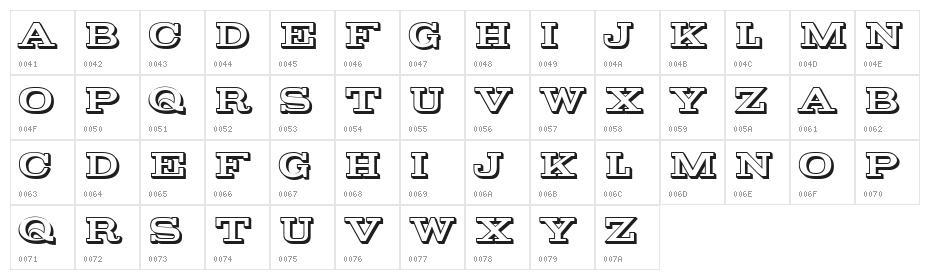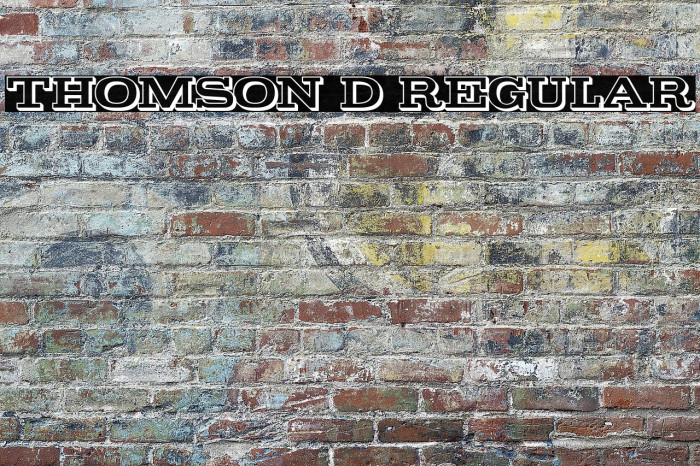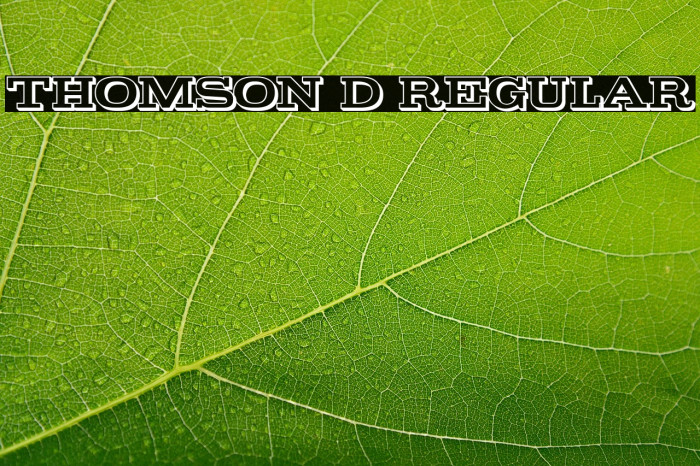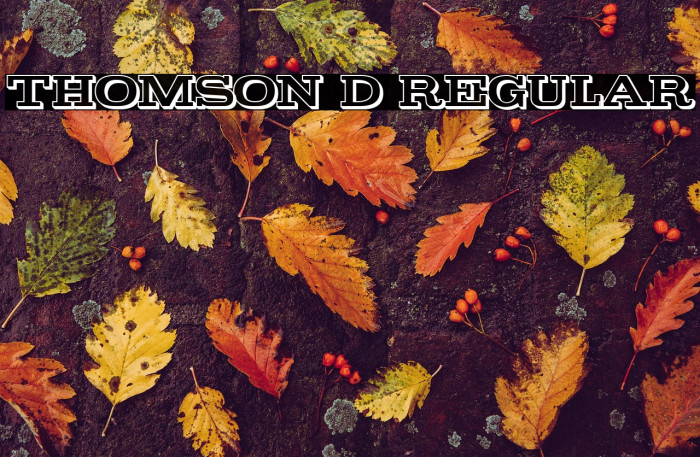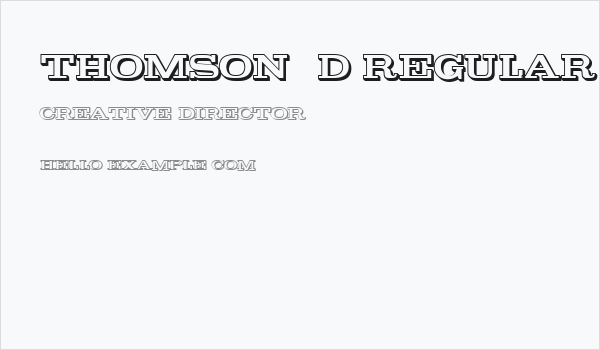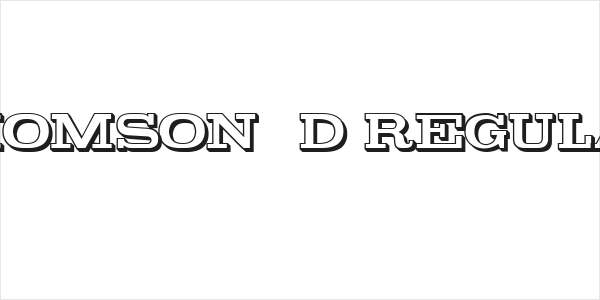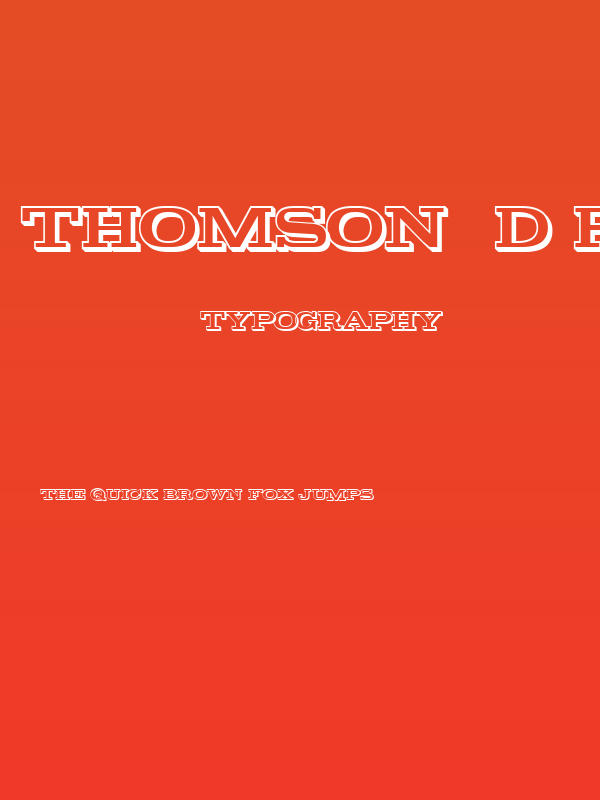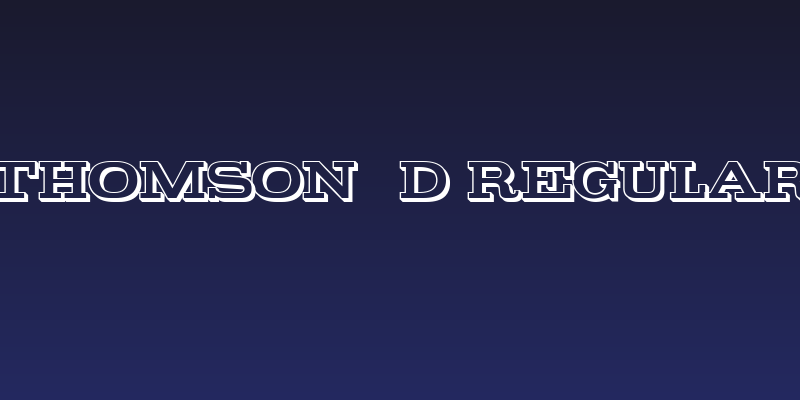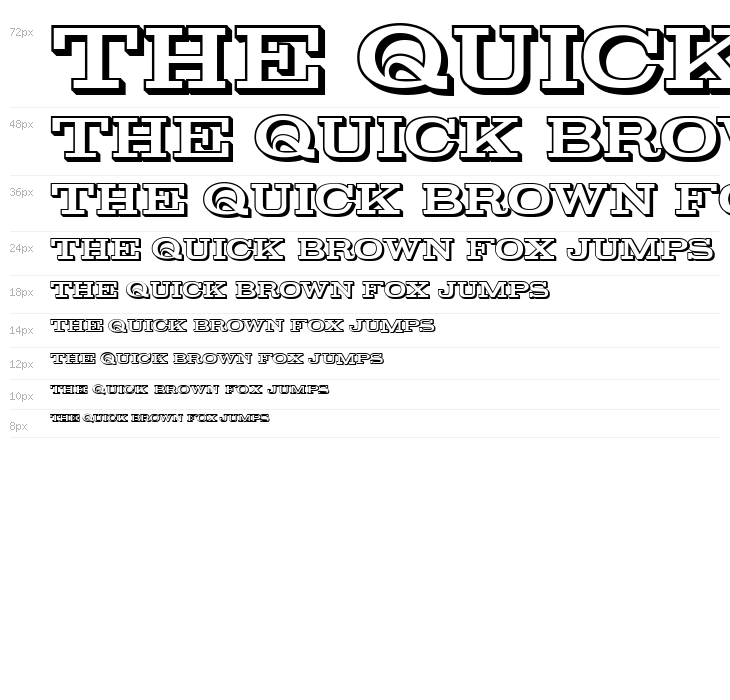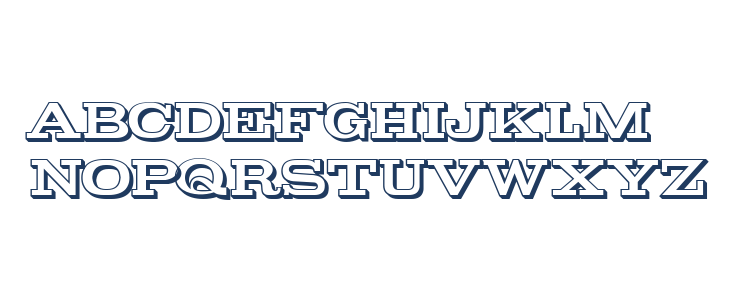
Thomson 3D Regular Font
Thomson 3D Regular Description
This font features a bold, three-dimensional design with a strong outline that gives each character a striking, shadowed appearance. The uppercase letters are uniformly structured, with a geometric precision that enhances their readability and impact. The style is reminiscent of classic serif fonts but with a modern twist, incorporating a layered effect that adds depth and visual interest. The characters are evenly spaced, allowing for clear legibility even at smaller sizes. The font's unique 3D effect makes it ideal for creating standout headlines and titles, where a sense of depth and dimension is desired.